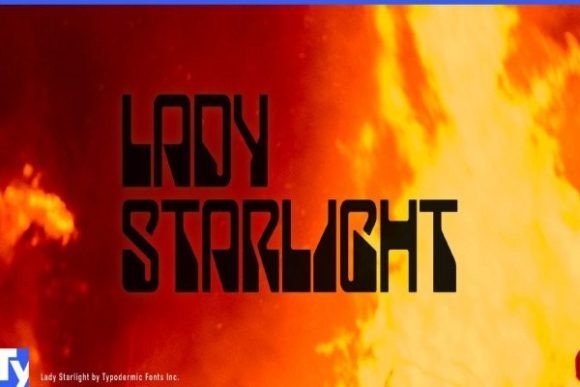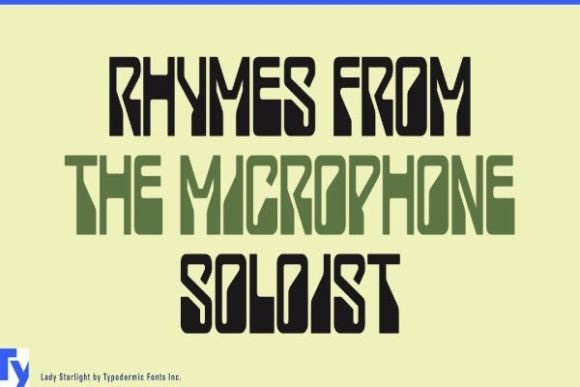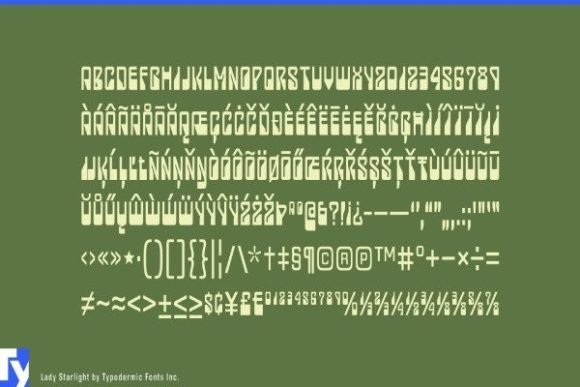
Lady Starlight Font
About the Lady Starlight Font
Presenting Lady Starlight Font, a unique and stylish typeface that will make your work stand out. Lady Starlight is a bold display font inspired by the Scorpions band logo. It is perfect for wall displays, social media posts, logos, advertisements, product packaging, product designs, labels, photography, watermarks, invitations, stationery, and many more.
Lady Starlight’s bold, slightly aggressive strokes make it ideal for headlines, logos, and short impactful statements in posters or advertisements. Its strong personality shines in branding for rock music, edgy fashion, or motorcycle apparel, conveying a sense of rebellion and power. However, its condensed letterforms and heavy weight make it less suitable for body text or UI elements where readability is paramount.
Pairing Lady Starlight effectively requires considering its bold character. A clean sans-serif like Montserrat or a geometric sans-serif like Futura would create a balanced contrast, grounding its boldness. For a softer contrast, a delicate serif like Garamond or a more playful script such as Pacifico could work, depending on the desired overall mood.
Avoid using Lady Starlight for lengthy text blocks or applications requiring high legibility at small sizes. Its best use lies in creating visual impact and emphasizing key messages.
Lady Starlight Font Usage Examples
Lady Starlight Font Example